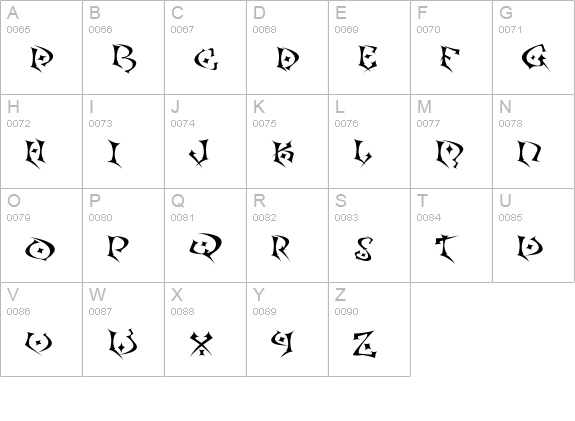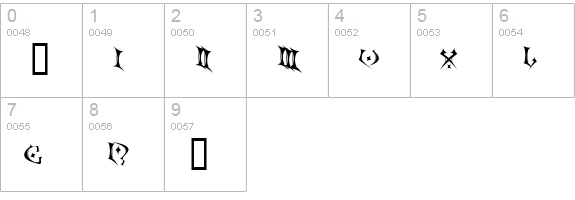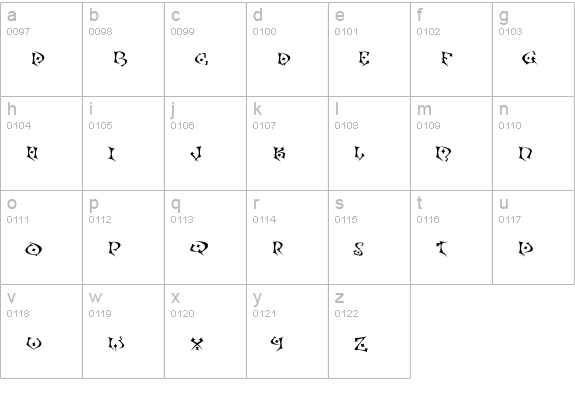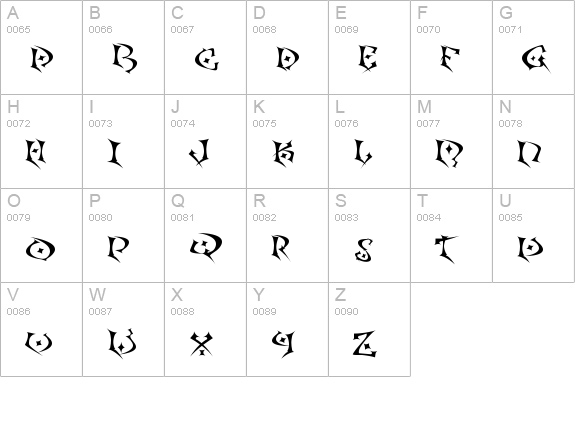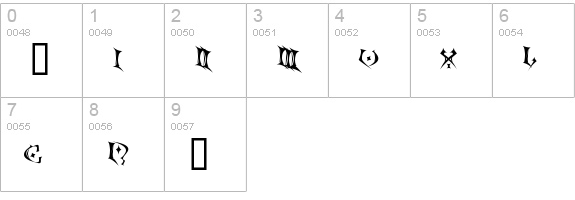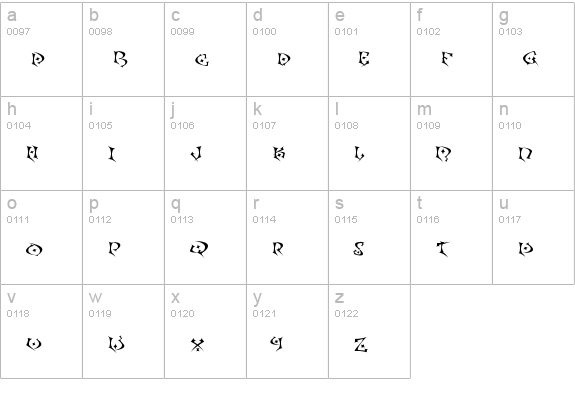
Kefka Font Details
Introducing Kefka, a captivating and versatile font that will elevate your designs to new heights. With its unique blend of modernity and elegance, Kefka is the perfect choice for any creative project, from branding and advertising to social media posts and website designs. This exquisite font features sleek and sophisticated letterforms that effortlessly capture attention and make a lasting impression. Each character is meticulously crafted, ensuring perfect harmony and legibility in every word and sentence. Whether you're creating a logo, designing a magazine layout, or crafting an invitation, Kefka will add a touch of class and professionalism to your work. But what makes Kefka even more remarkable is that it is available to you completely free of charge! That's right, this exceptional font can be freely downloaded from FontsMarket.com, allowing you to access its full potential without any constraints. We believe that creativity should never be limited by budget, and Kefka proves just that. With Kefka, you have the power to express your ideas and convey your message with style and sophistication. Its extensive character set includes uppercase and lowercase letters, numbers, punctuation marks, and special symbols, providing you with all the tools you need to bring your vision to life. So why wait? Take advantage of this incredible opportunity and download Kefka today from FontsMarket.com. Unleash your creativity and let Kefka become your go-to font for all your design needs. With Kefka, the possibilities are endless, and the freedom to create is yours.